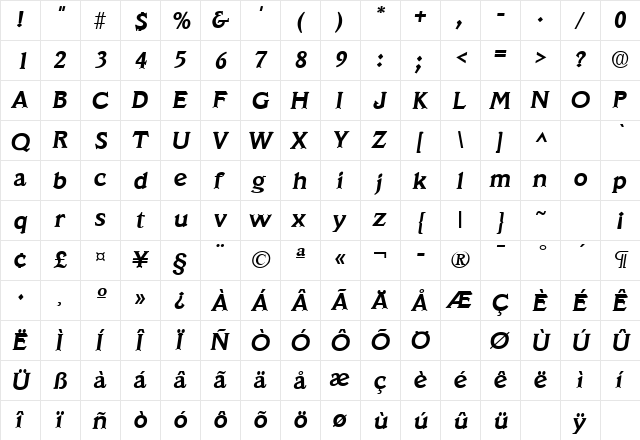
Veracruz Bold Italic
Design Context for Veracruz Typeface
Veracruz is a composed and adaptable typeface that performs quietly and consistently across a wide range of design contexts. Its italic angle brings a sense of urgency and motion to the letterforms. The heavy weight commands attention and anchors typographic hierarchies.
Pro Tip: Try Veracruz for annotation and caption copy alongside an upright companion — the contrast in angle creates a dynamic but ordered typographic system.